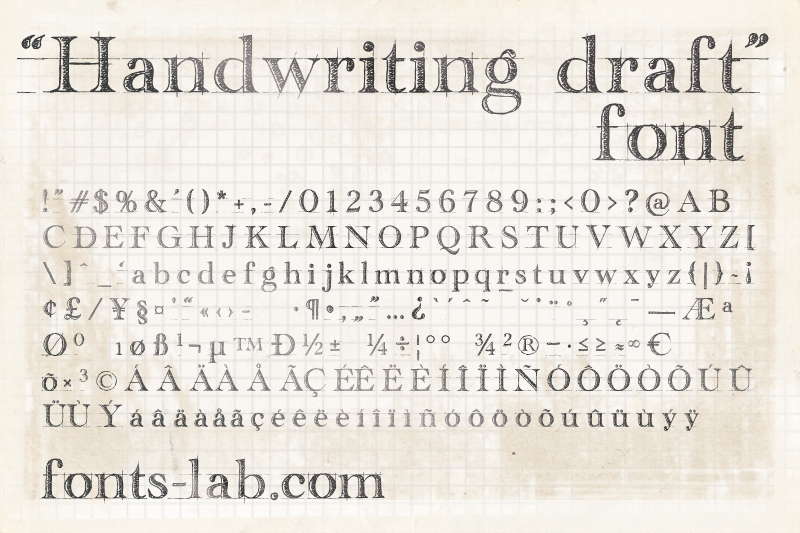
Handwriting Draft from Fonts Lab is a free decorative display font modeled on elegant, high-contrast serif lettering. Fine construction lines run through the letters, and rough hatched shading makes the finished forms resemble a type designer's working sketch.
Designers drawn to process-led graphics will find it especially apt for typography exhibitions, workshop posters, and editorial features about lettering. Its formal proportions also suit fashion packaging and literary event programs, where the unfinished texture keeps the result from feeling overly polished. The visible guide lines can join diagrams, pencil marks, or drafting imagery as part of the illustration itself.